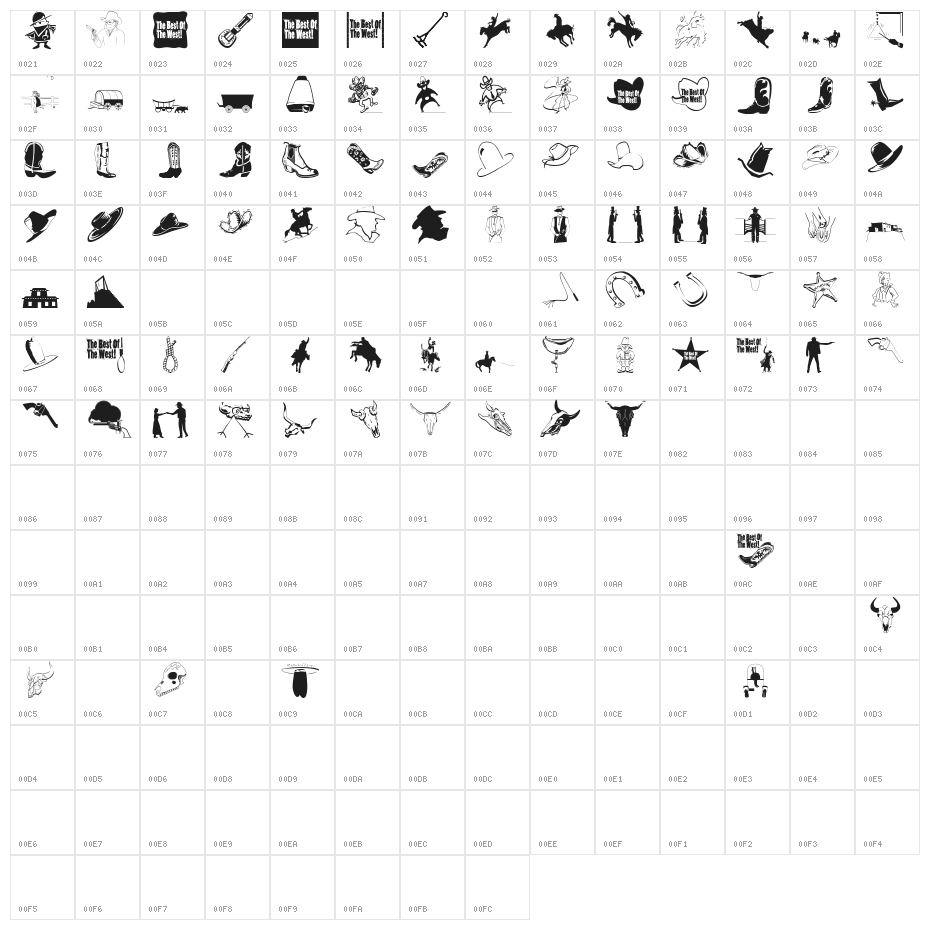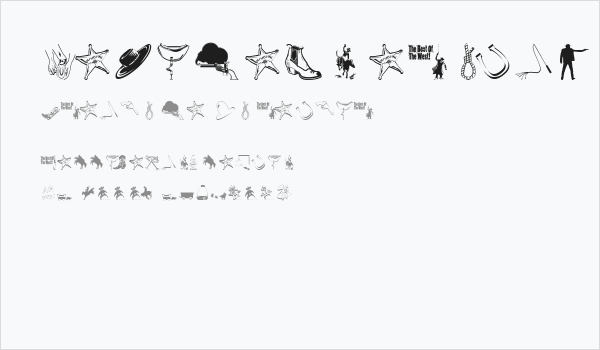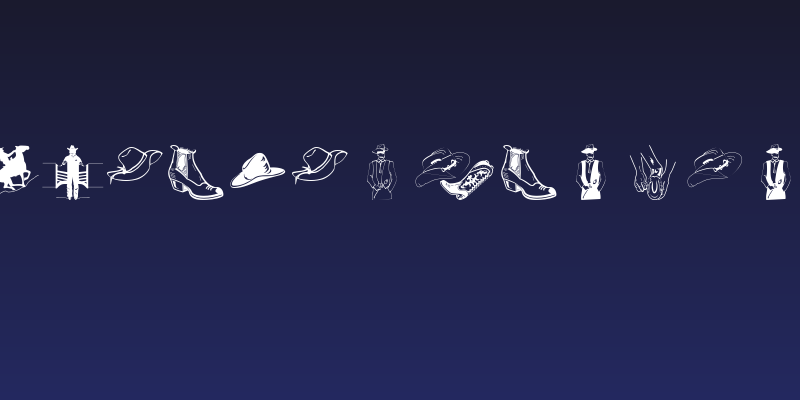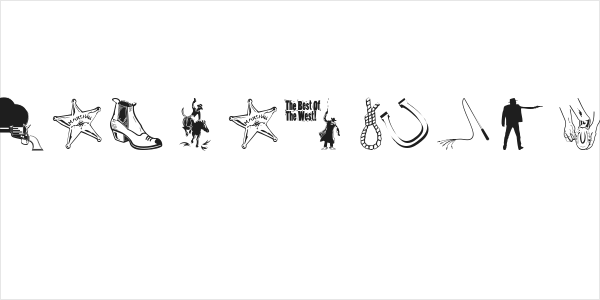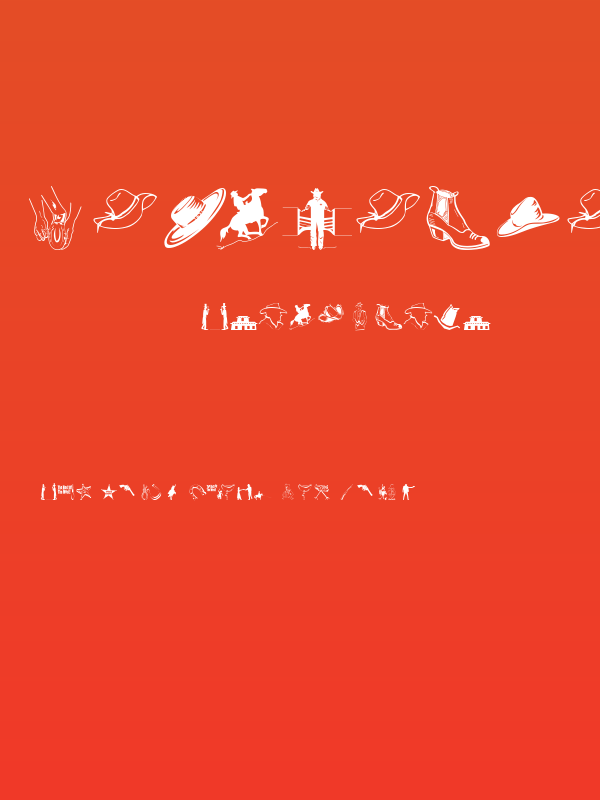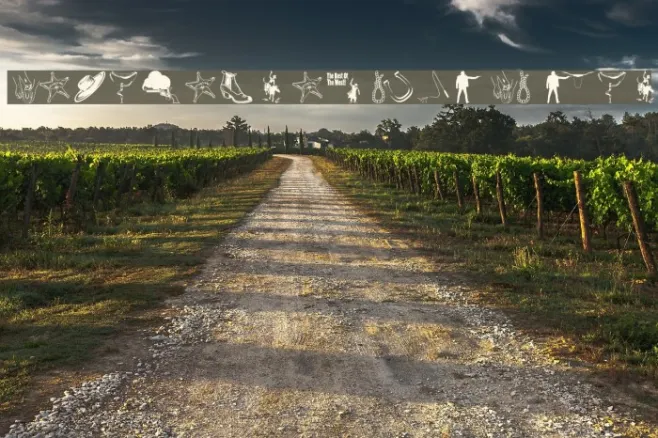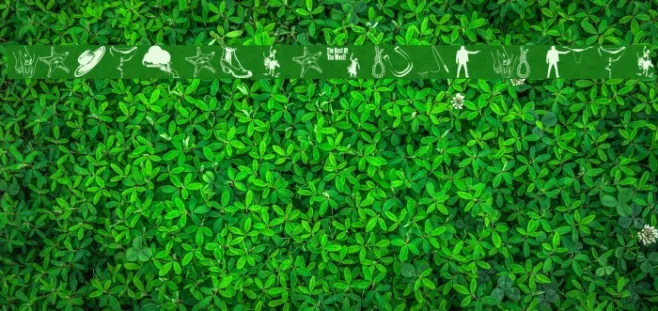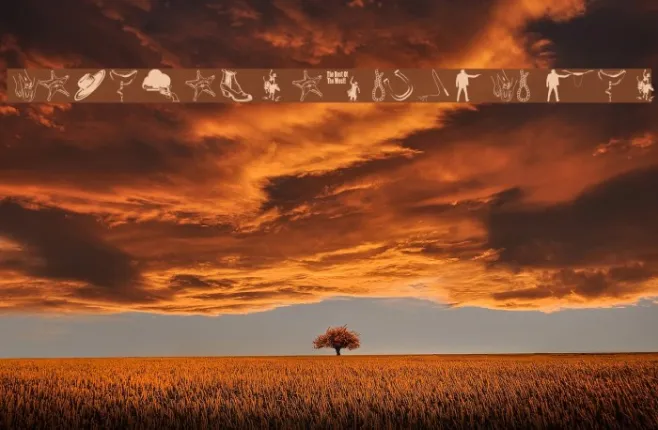
WeLoveAmericasWisdom Font
WeLoveAmericasWisdom Description
A decorative display font composed entirely of detailed Western-themed illustrations, including cowboy hats, boots, horses, cacti, wagons, and various Western motifs, with each character represented by a unique pictogram rather than traditional letterforms.
| Overall Style | Decorative, Thematic, Playful |
| Use Case | Logos, Posters, Themed Graphics, Headlines |
| Proposed Projects | Event posters, themed party invitations, signage for Western or cowboy events, children’s educational materials, novelty branding. |